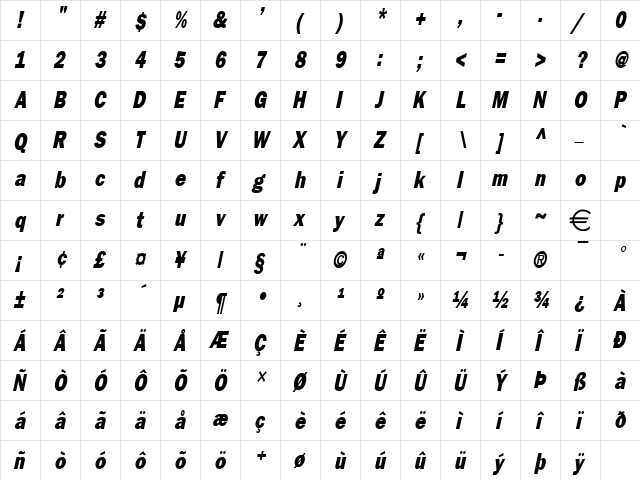
FrancisGothicReduced Italic
Design Context for FrancisGothicReduced Typeface
FrancisGothicReduced has the quiet confidence of well-executed sans-serif typography: versatile, unobtrusive, and dependable at any size. Its italic angle brings a sense of urgency and motion to the letterforms.
Font Pairing: Works well alongside a characterful serif or display font that can carry the expressive load while FrancisGothicReduced handles the functional copy.
Pro Tip: Use FrancisGothicReduced for UI labels, navigation, and short-form body copy where clean legibility is the priority.